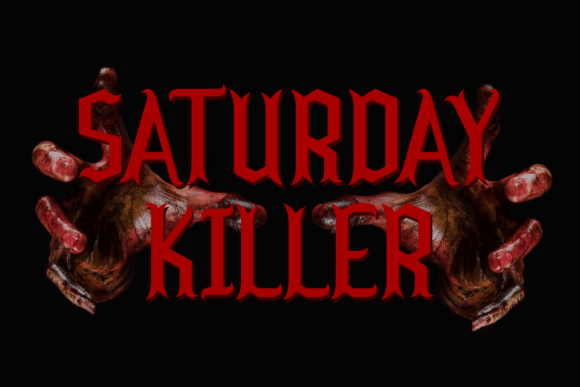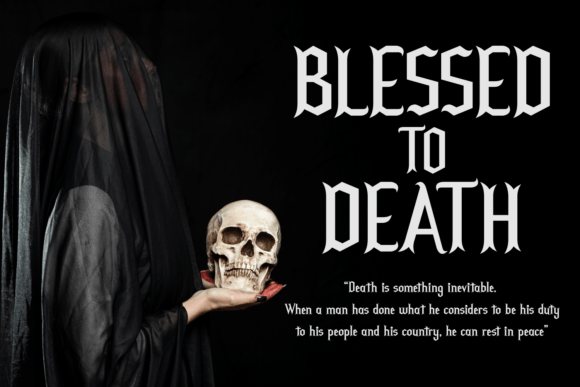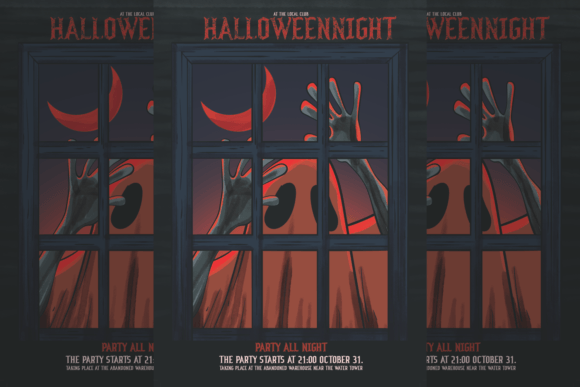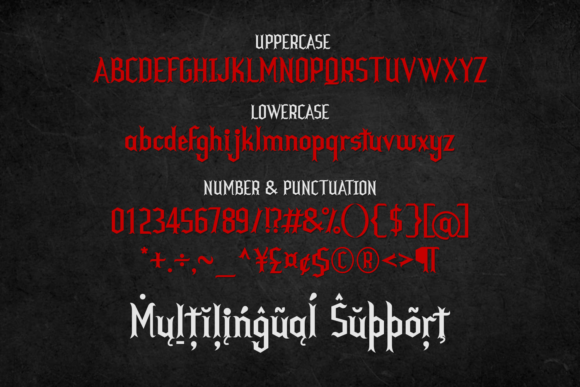
Introduction to Halloween Mystery Font
Spooky fonts such as Halloween Mystery are great for making Halloween parties fun.
It’s also the perfect addition to your next designs, making it easy to create something you can use to make people smile at your Halloween celebration .
Key Features of Halloween Mystery Font